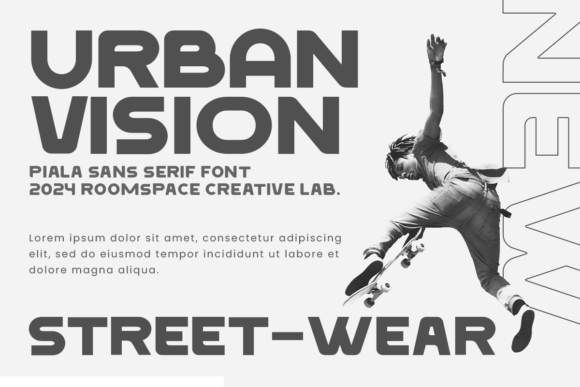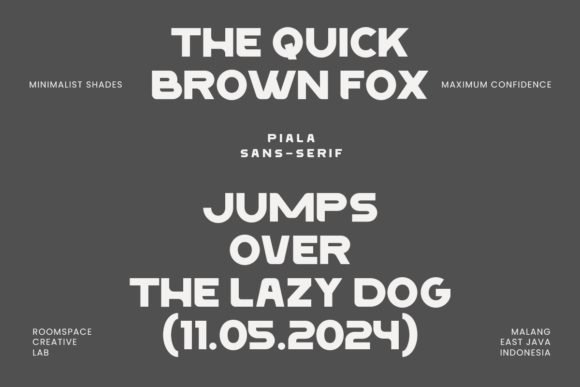
Piala Font
Piala is a striking sans serif font that blends modern design with clean geometric lines. Carefully crafted for balance and precision, Piala captures a fresh, contemporary look that’s perfect for branding, editorial, and digital design. Each letter is built with smooth, symmetrical shapes, creating a harmonious and readable typeface that shines across all media. Its bold presence makes it ideal for logos, headlines, and web designs, giving a professional edge to your projects.